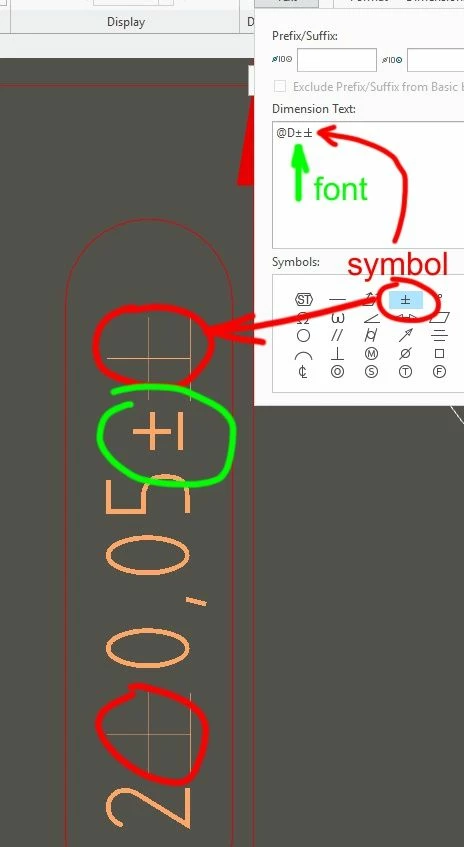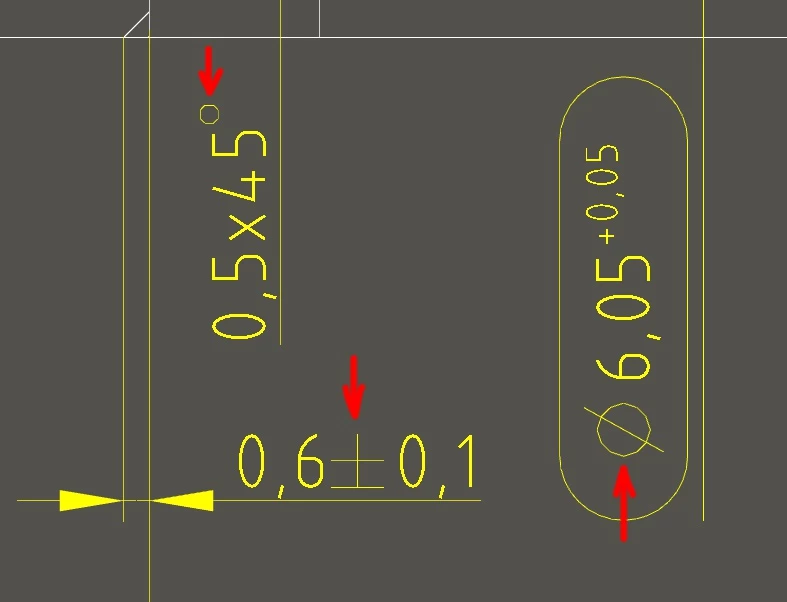
Creo versus custom font
I have created my own font including all letters/symbols etc. but Creo 4.0 ignoring some of them.
As you can see letters in my font are kinda bold comparing to default font. All is OK except some symbols like ± Ø or other ones. Anyone knows how to force Creo use font properly and everywhere?
Hi,
it is difficult to guess what is going on without having your font available.
Option 1.]
Upload your font, model, drawing for testing purposes.
Option 2.]
Try reproducing the problem with Creo TTF font. Then upload model, drawing for testing purposes.
If I'm not mistaken (and I might be) I think the symbols you are having trouble with are handled differently in Creo. There is something different about the diameter, degree, plus/minus symbols and probably all the other symbols that you can put into notes and dimensions using the symbol pallette.
I remember there was a problem with these things when we upgraded to Creo 4, I had to put a line in my drawing setup that said:
symbol_font legacy
I am using "symbol_font legacy" option but Creo is stubborn when putting symbol instead of font letter for every dimension. Haven't found other option related to symbol in dims so that is the reason why asked...
Hi,
I guess that if you set symbol_font legacy then Creo fills Symbols: area with characters defined in special.fnt font.
I guess that if you set symbol_font to iso/asme then Creo fills Symbols: area with characters defined in symbol***.ttf files stored in folder <Creo Parametric load point>\Common Files\text\fonts